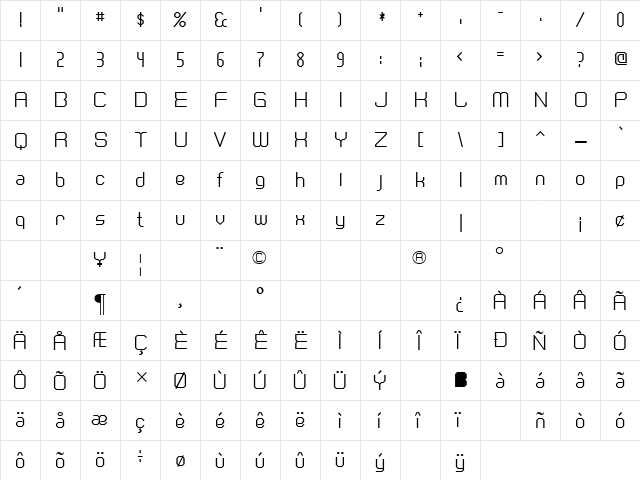
Cranberry Gin Regular
| Foundry | Larabie Fonts |
Design Context for Cranberry Gin Typeface
Cranberry Gin takes a measured approach to typography — its balanced proportions and neutral character make it a reliable workhorse for both digital and print work.